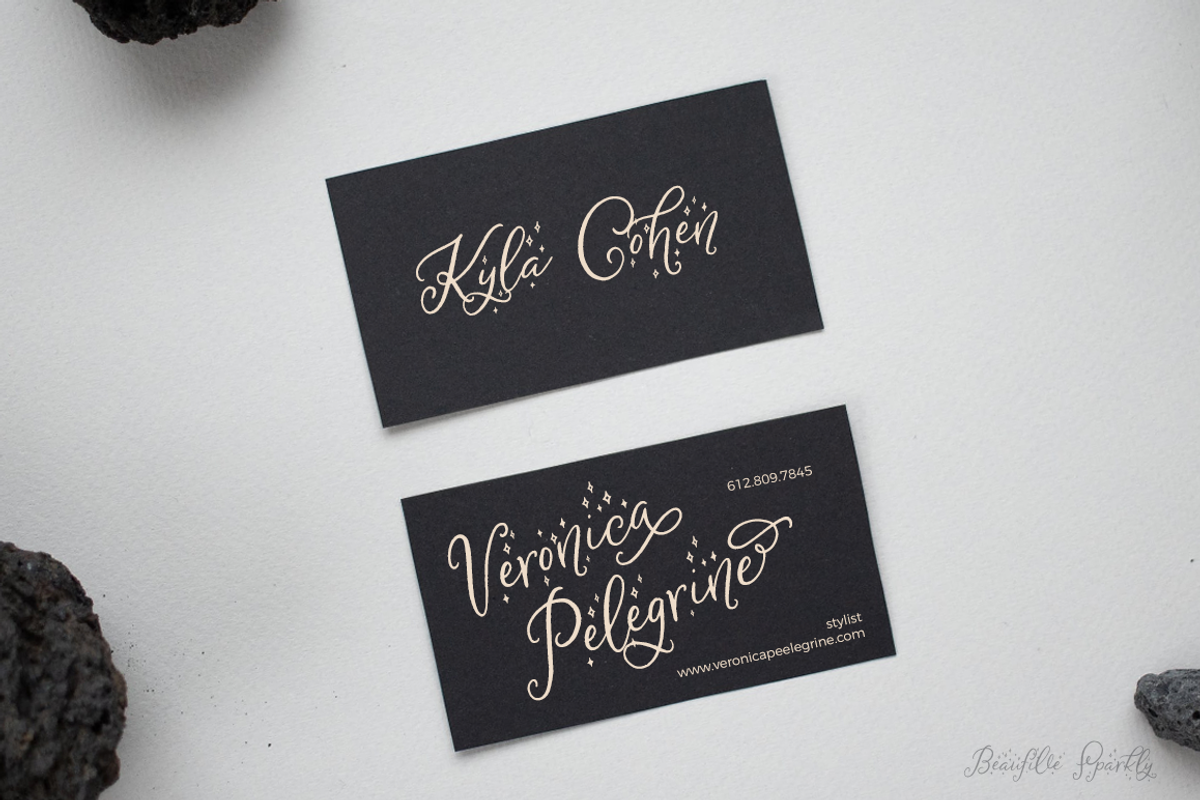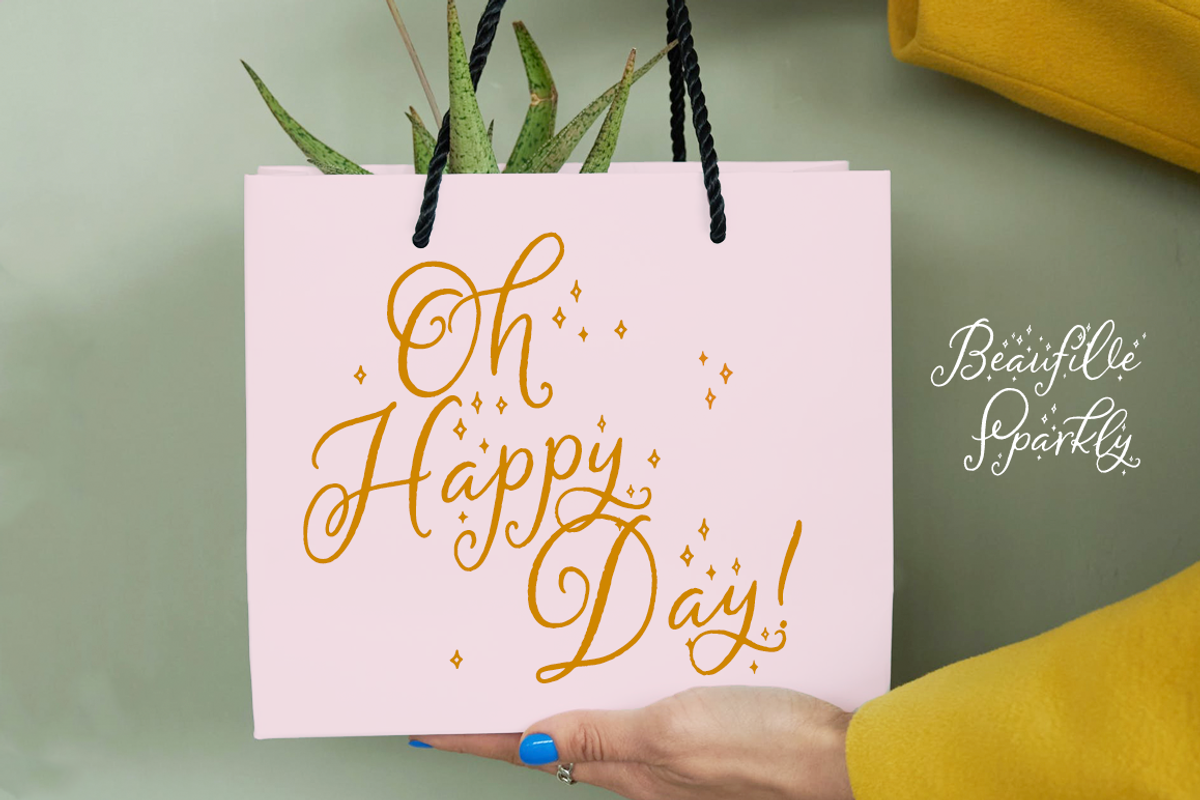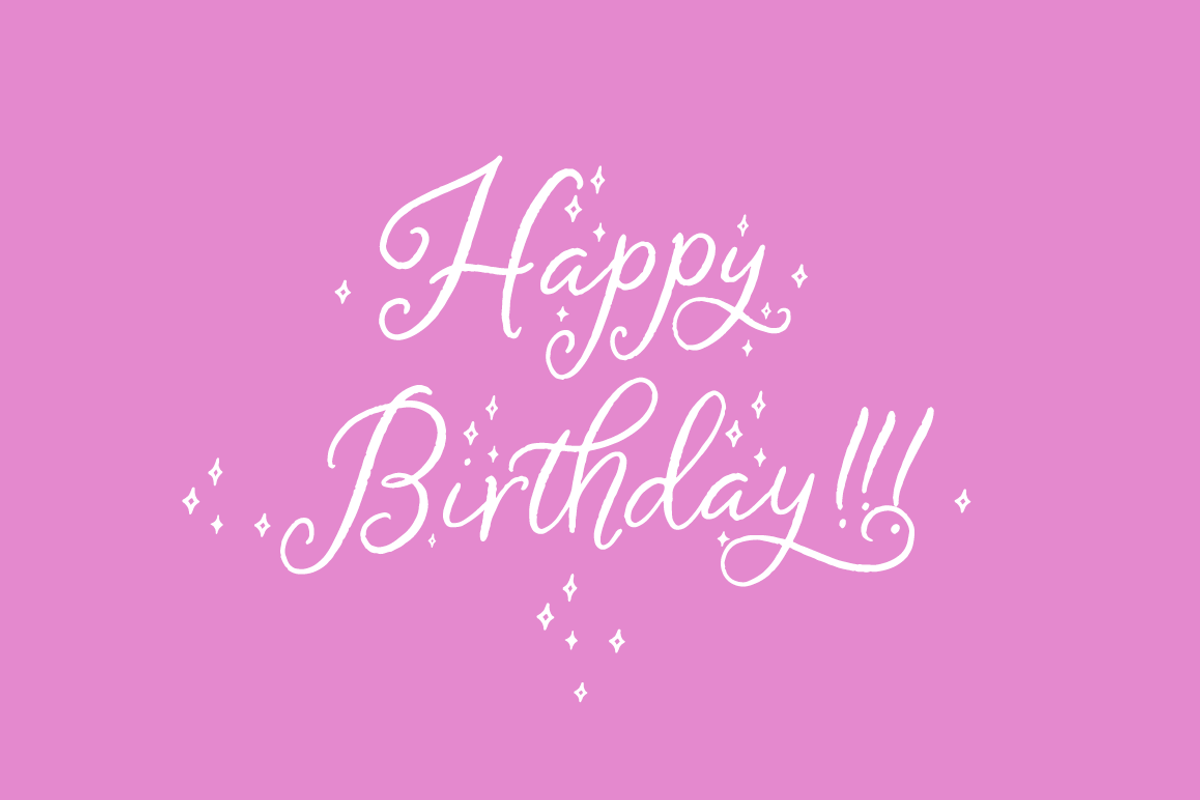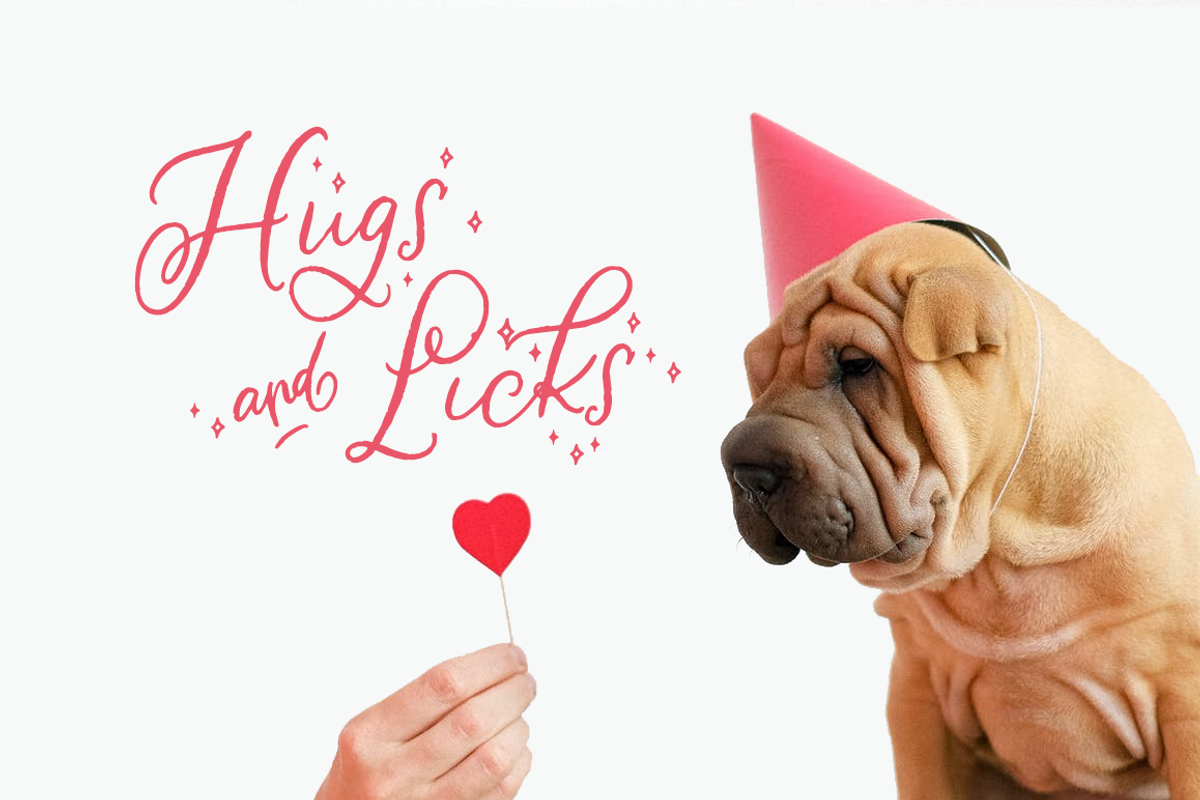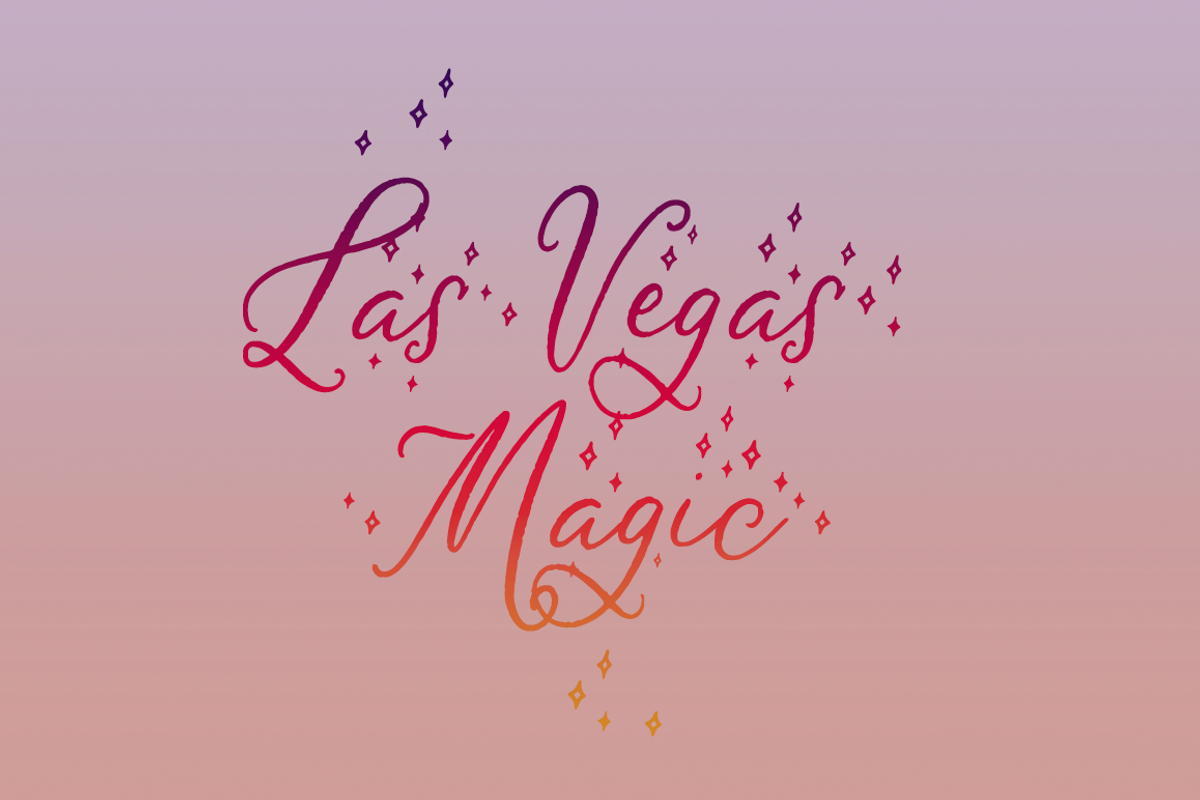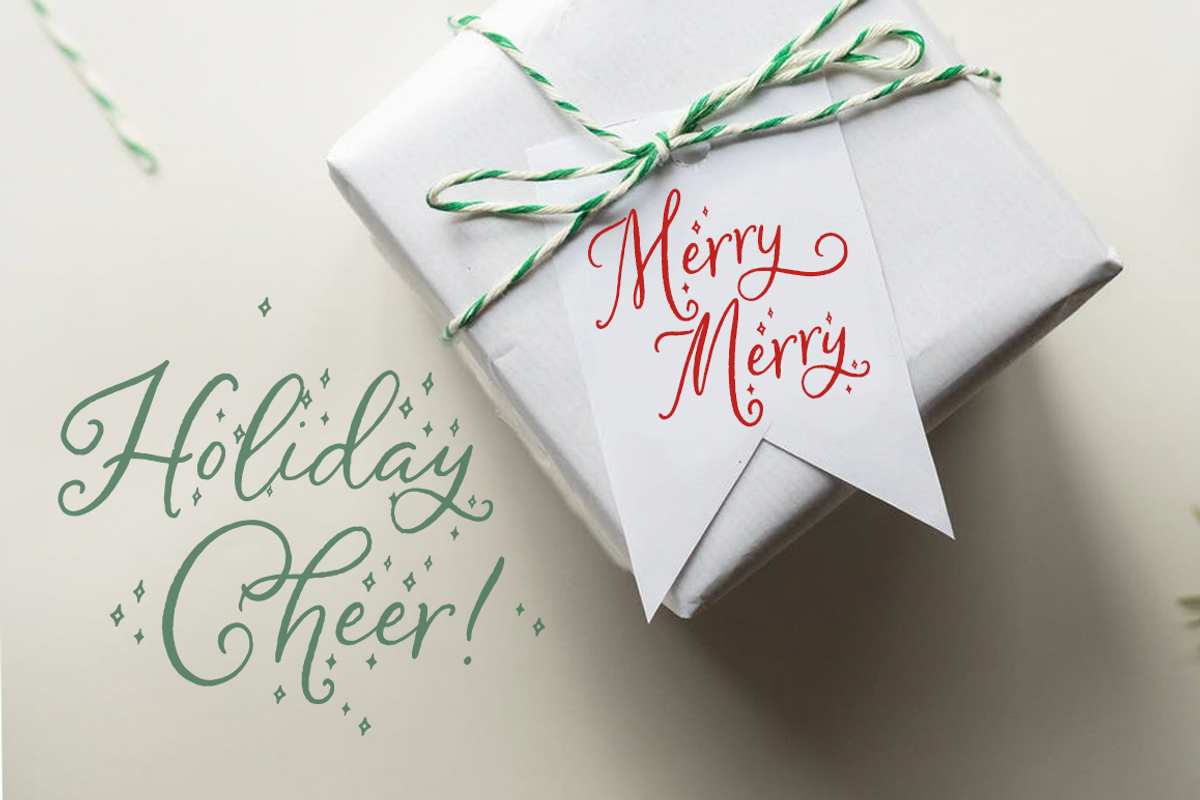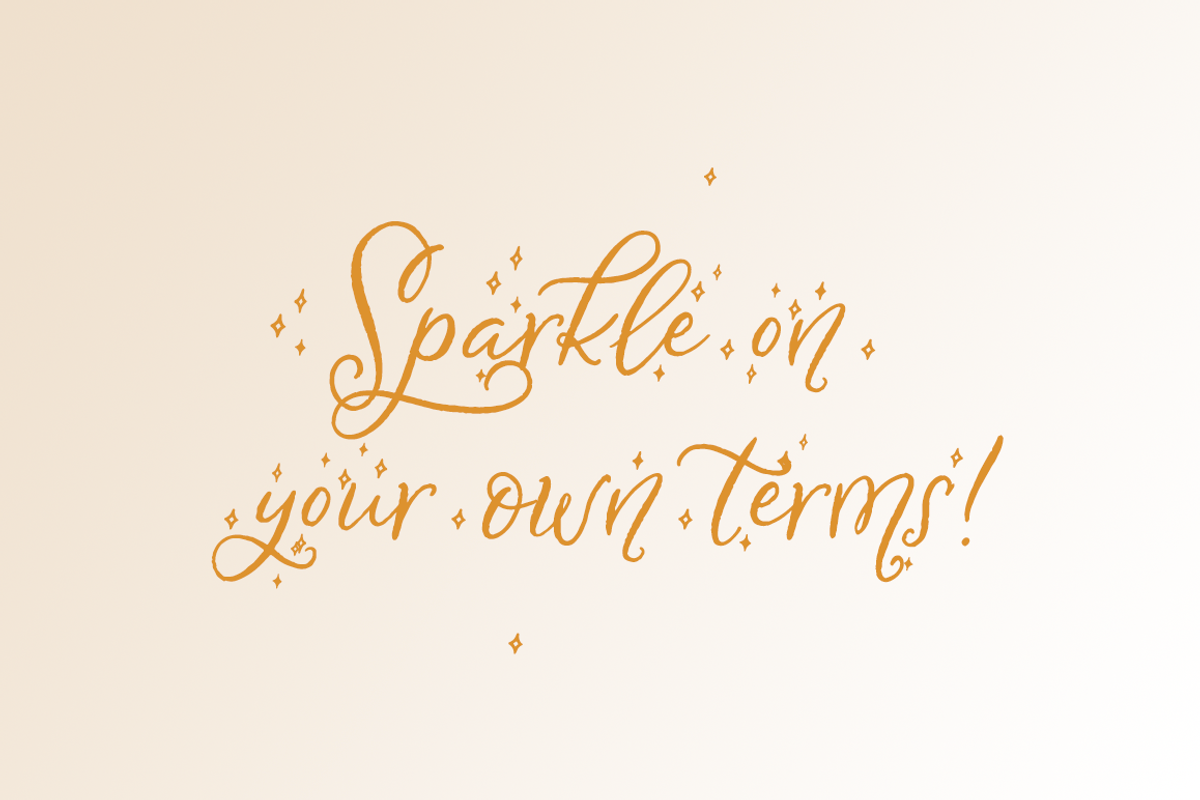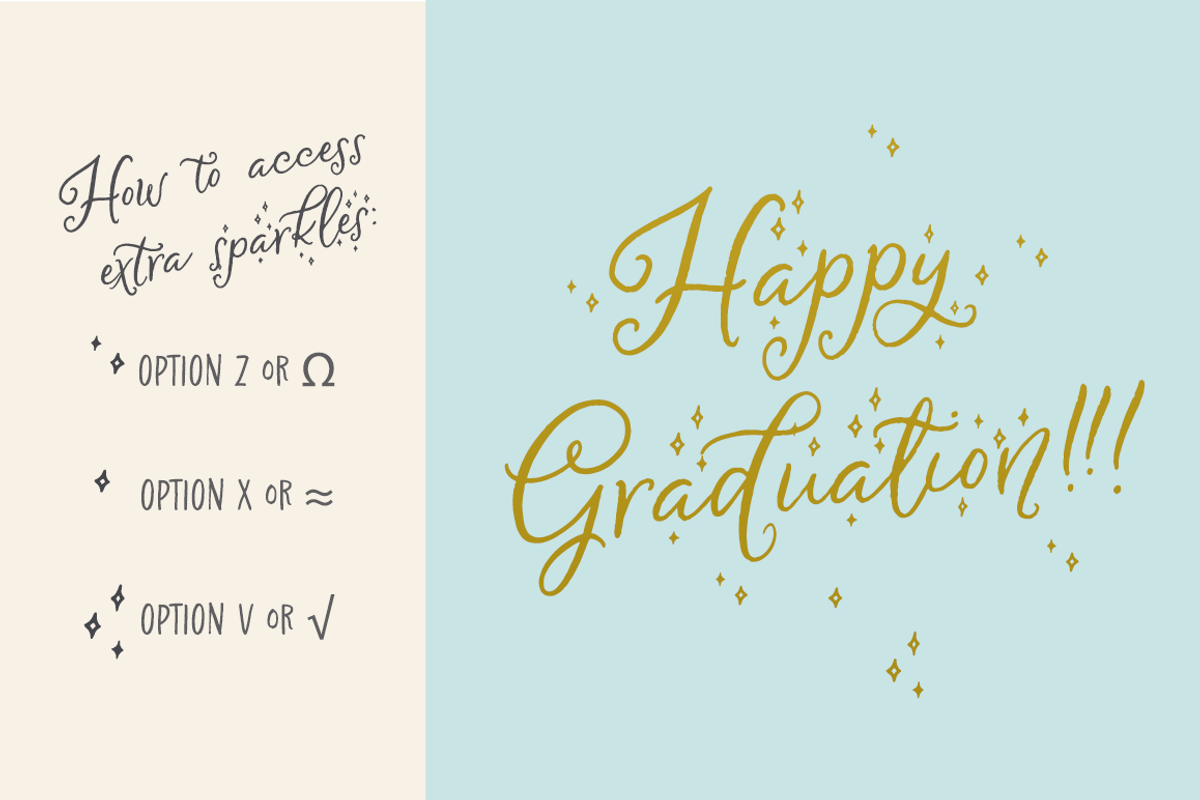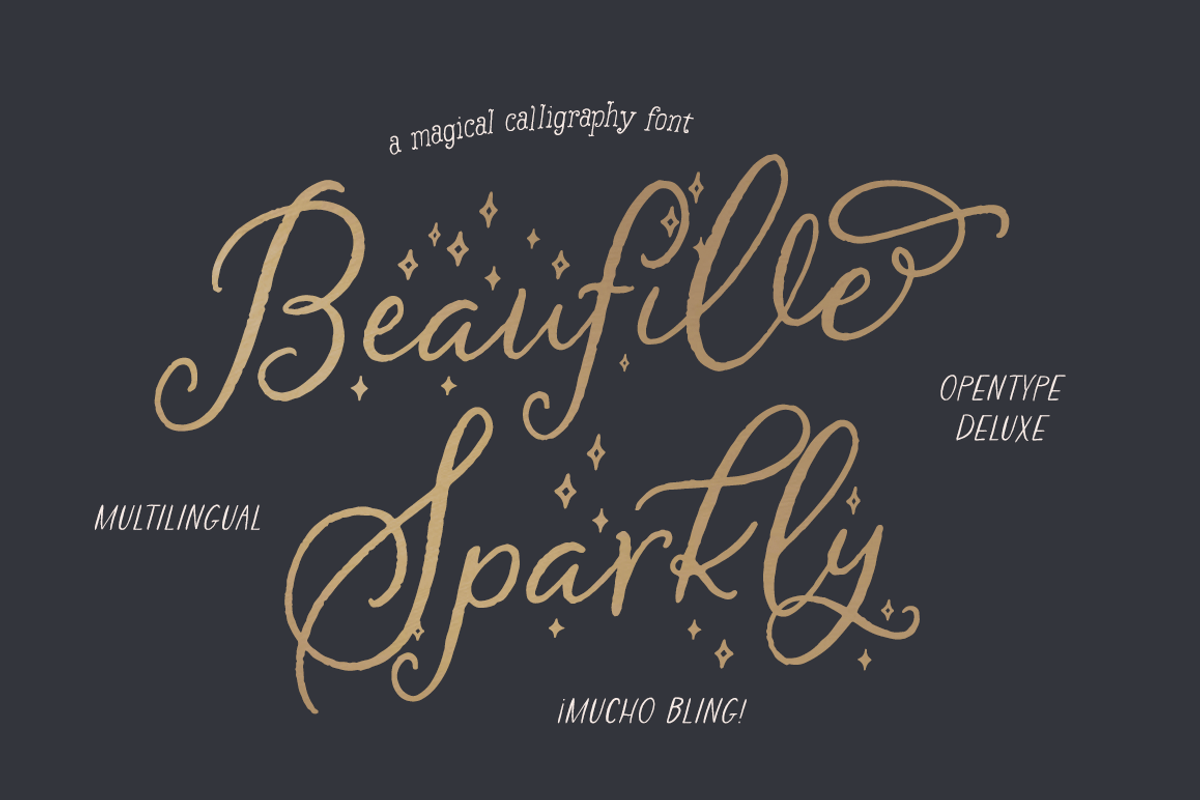
Beaufille Sparkly
Beaufille Script with an extra dash of magic! Zesty & fun, this hand-calligraphed script adds life to the party. The sparkles place automatically as you type. Use the bonus sparkles and alternate glyphs to customize your designs. It shines in many languages with multi-lingual support.
- OpenType aware
- Alternate Glyphs
- Standard Ligatures (default in OpenType aware programs)
- Stylistic Ligatures (select in OpenType programs)